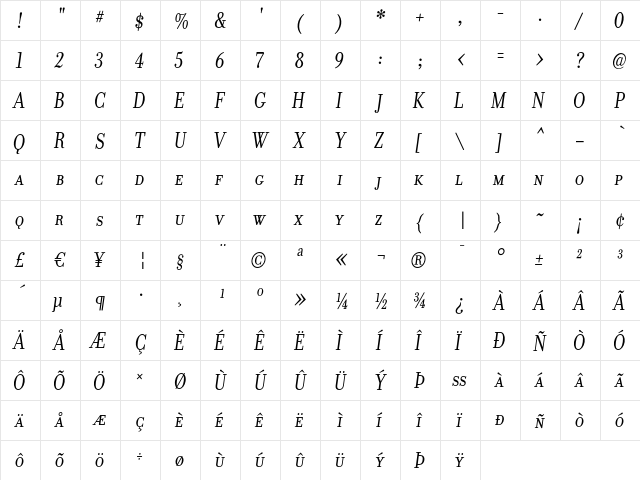
DonatoraSC Italic
Design Context for DonatoraSC Typeface
DonatoraSC offers clean, dependable letterforms without strong stylistic allegiance, making it a practical choice for designers who need flexibility. The slanted form adds forward momentum and visual energy.
Pro Tip: Use DonatoraSC for emphasis, pull quotes, and subheadings where its slanted energy can add rhythm to the layout.